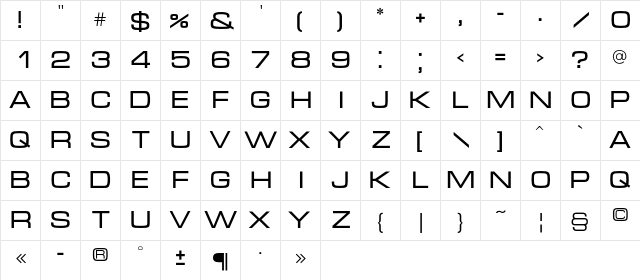
MicraC Regular
Design Context for MicraC Typeface
MicraC is a composed and adaptable typeface that performs quietly and consistently across a wide range of design contexts.